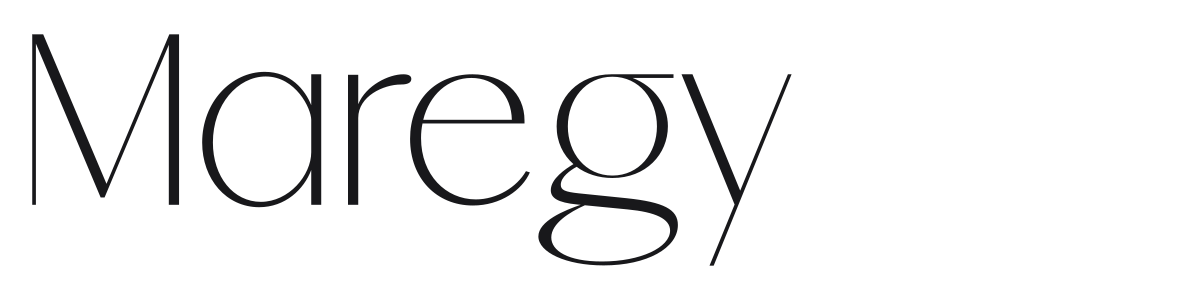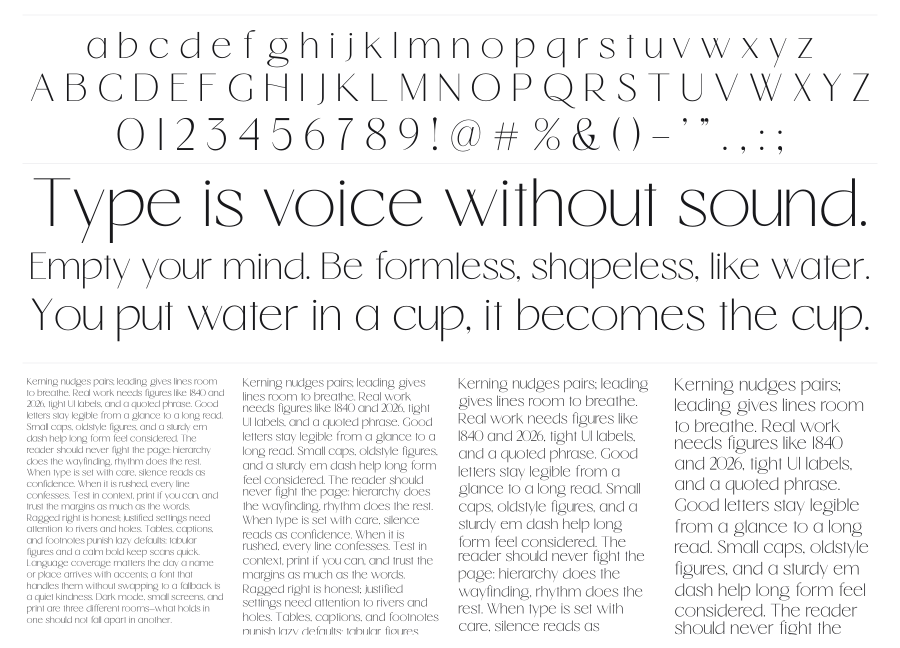
Maregy
Maregy is an ultra-thin humanist sans-serif with delicate stroke contrast and wide, airy proportions. The hairline weight gives it a refined, almost couture quality that sits comfortably alongside editorial photography or luxury branding. Light enough to feel effortless, structured enough to stay legible at display sizes.